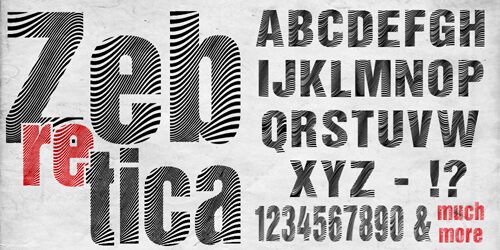
Zebretica by Nils von Blanc is a free decorative display font whose solid letter shapes are filled with dense, rippling zebra stripes. The repeated bands bend around each form and change direction through the curves, giving the lettering a restless optical effect. Widths shift noticeably from one letter to the next, and the rounded sections appear to swell beneath the pattern.
Its clearest role is on music posters, where the striped lettering can merge with animal imagery, stage photography, or graphic patterns instead of serving as a separate caption. Fashion packaging, club merchandise, and entertainment branding gain an unmistakable animal-print identity.
Zebretica is a font by Nils von Blanc.
Zebretica
Nils von Blanc